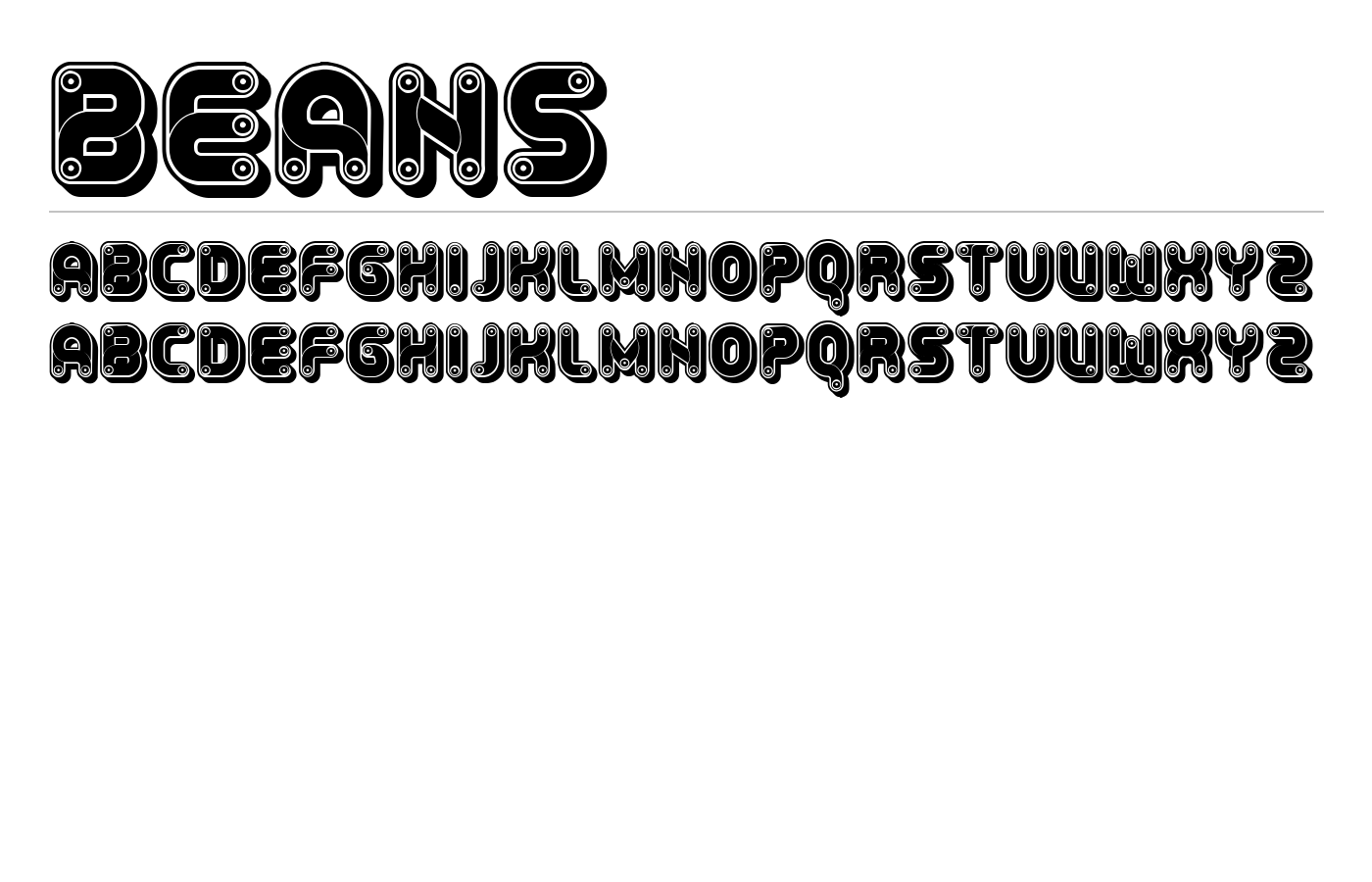
Beans Font is a bold, playful display typeface with a unique, rounded geometric style that features thick, solid strokes accented by small circular details resembling screws or rivets. Its high-impact, decorative design makes it perfect for fun and eye-catching logos, posters, or branding projects where a quirky, modern vibe is desired. This font works best in large sizes to showcase its distinctive character and energetic personality.
Beans Font
About Beans Font
| Font family | Beans Font |